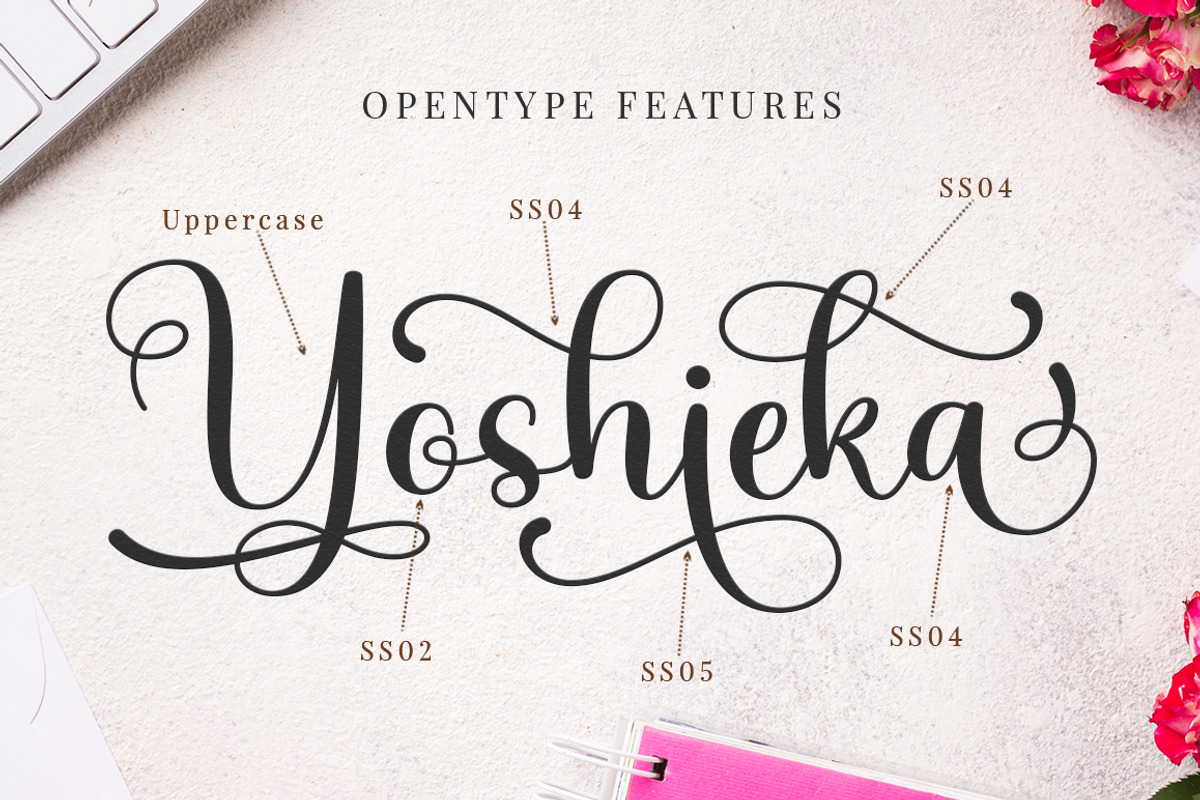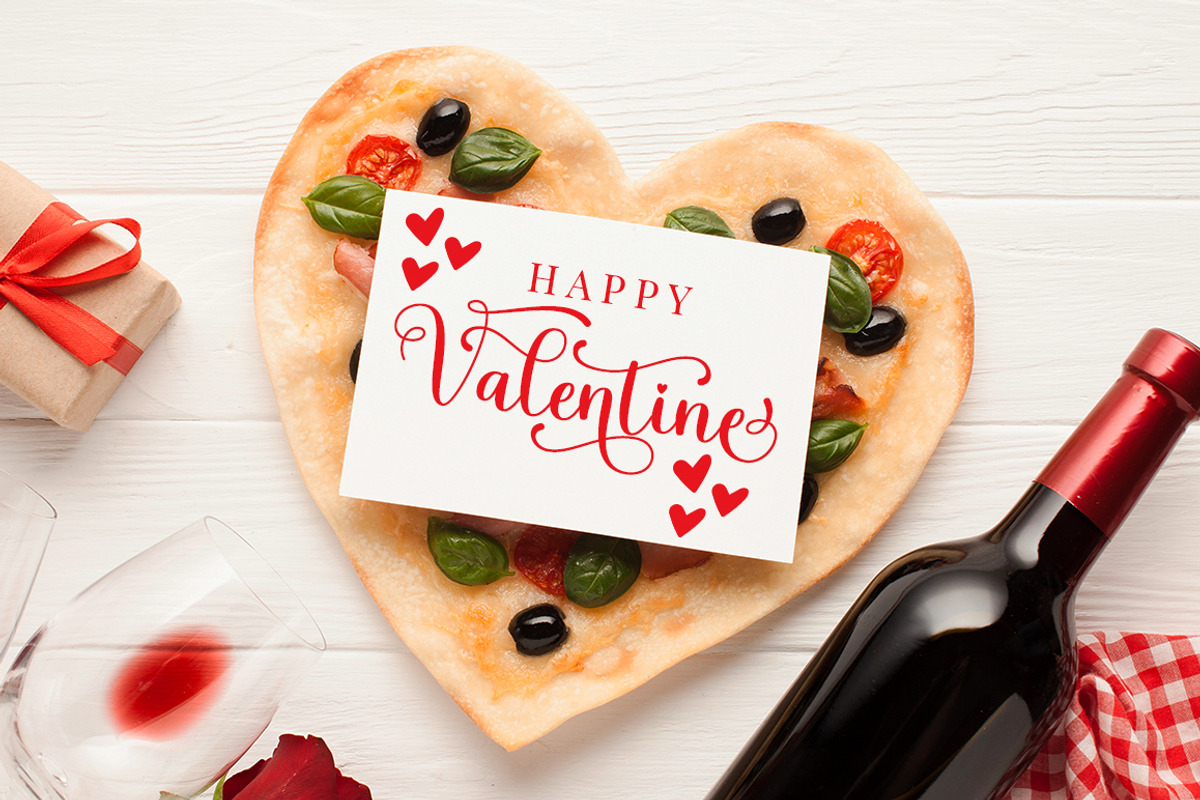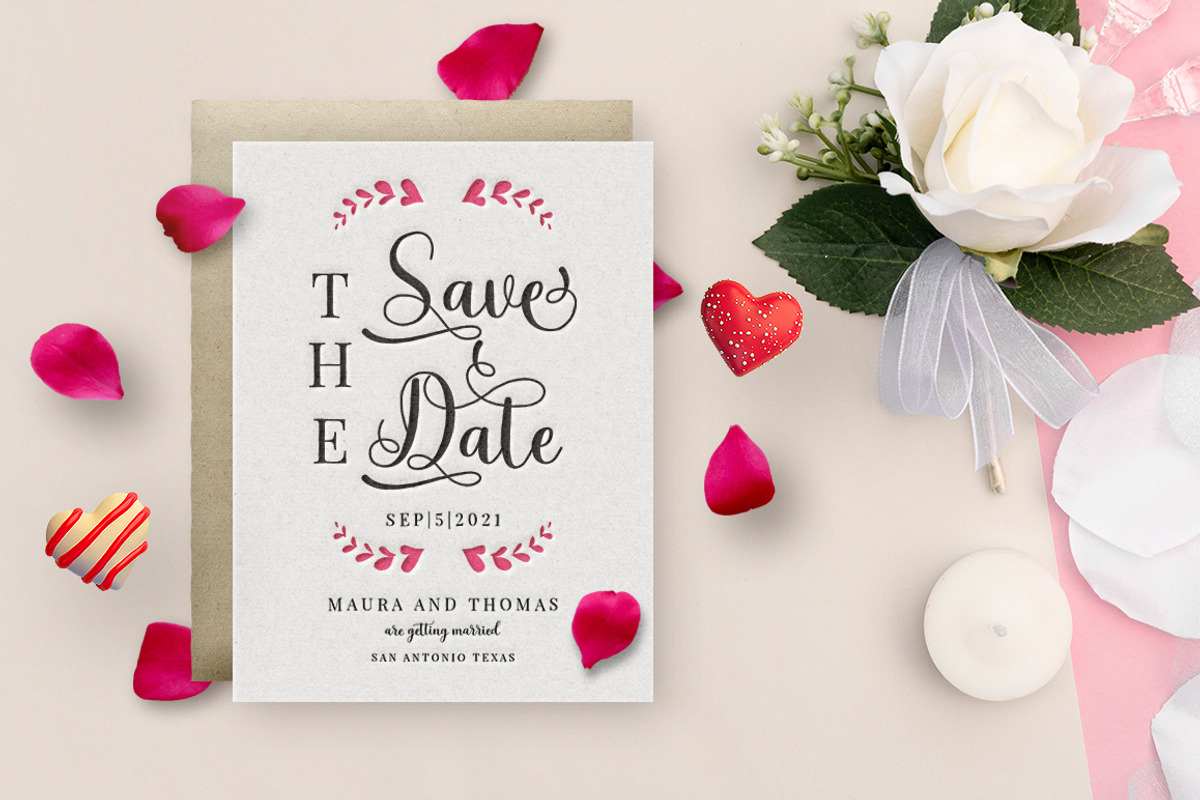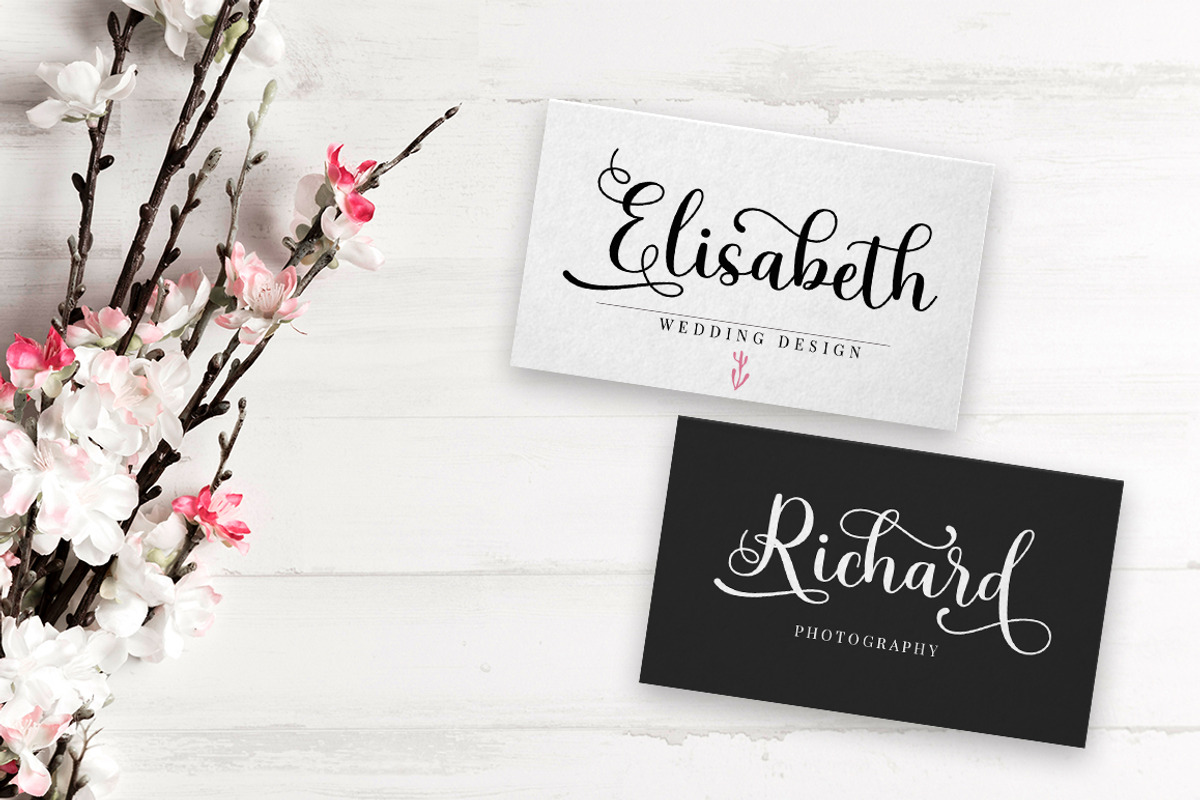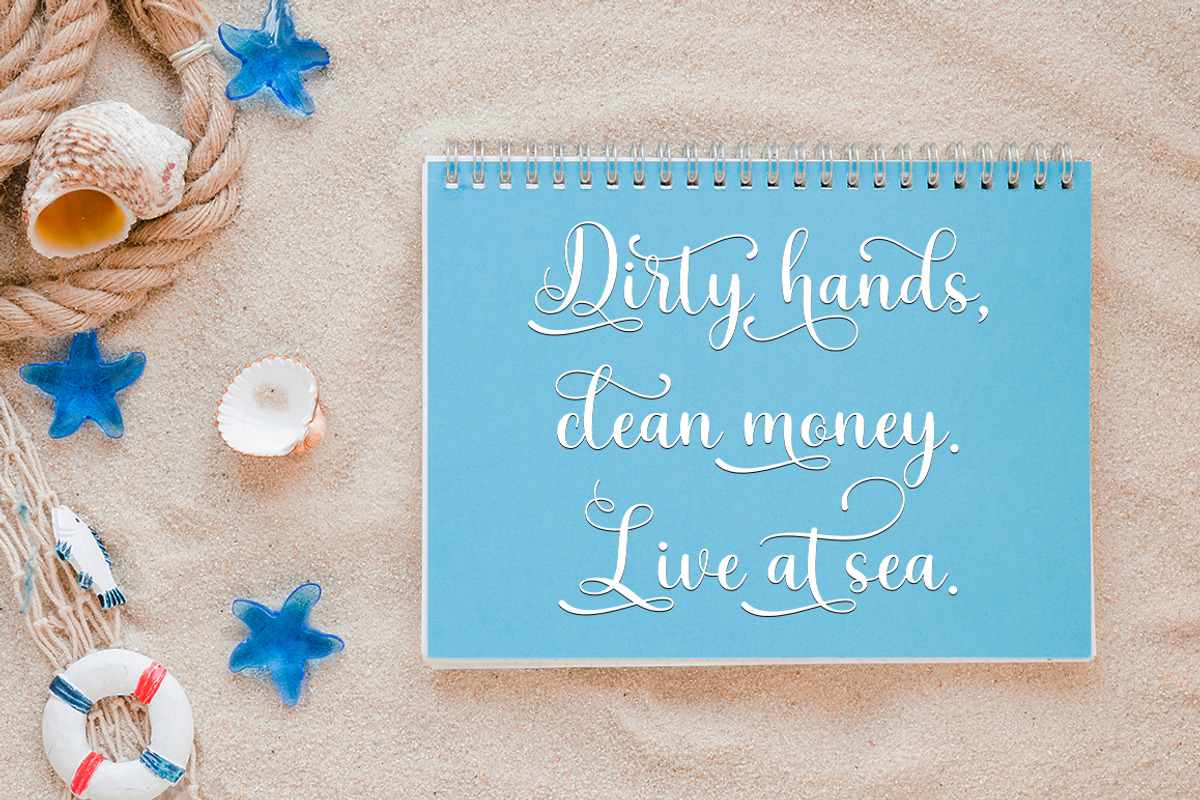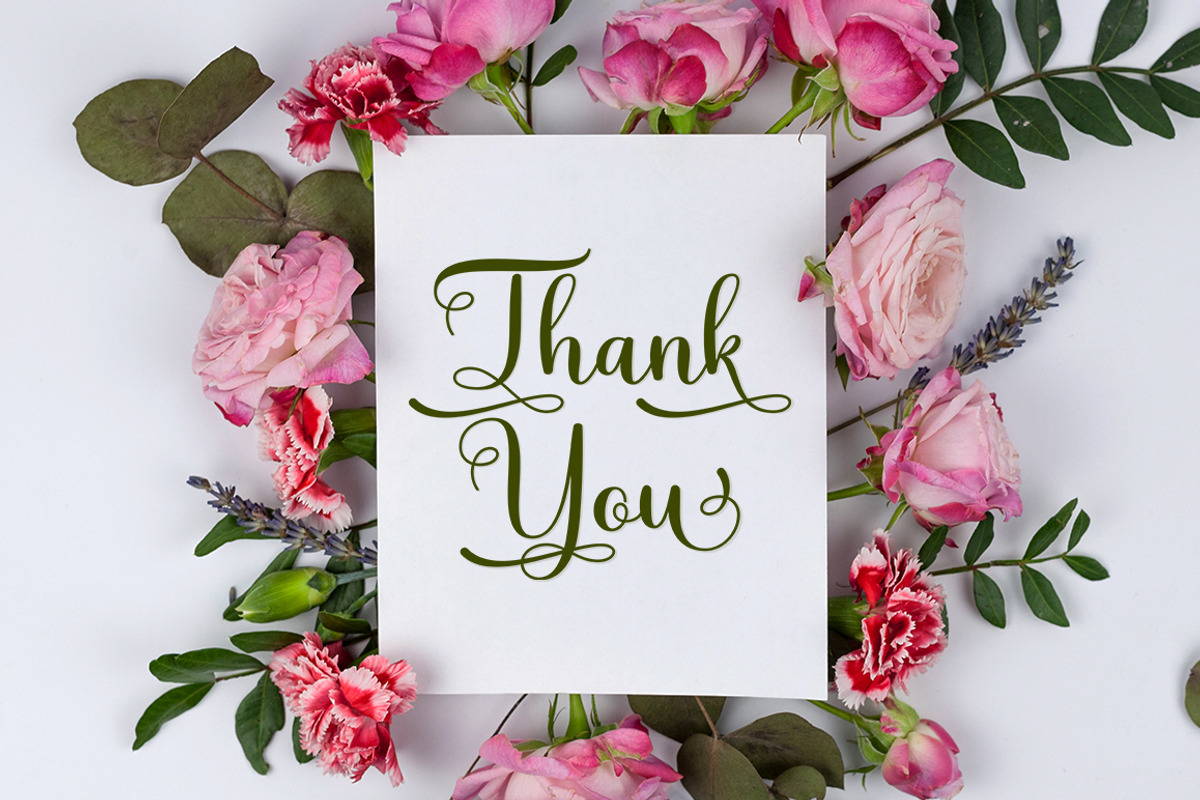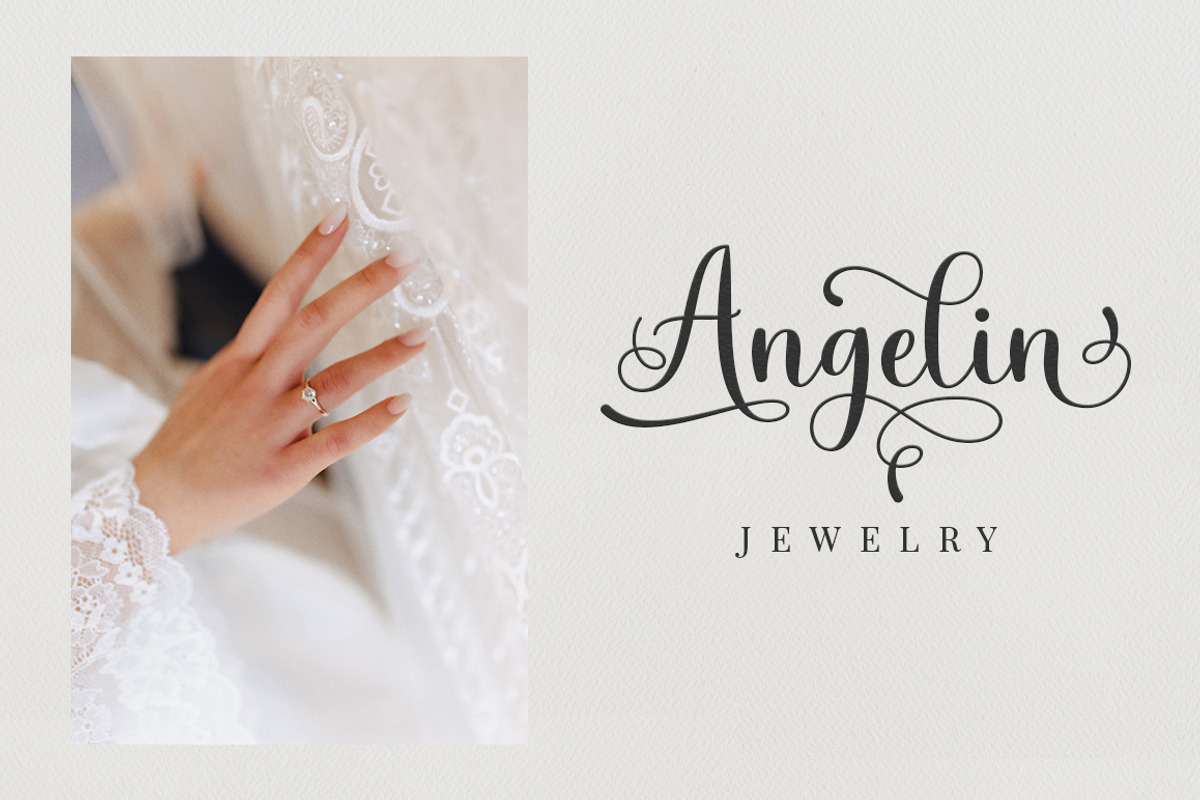
Yoshieka | Modern Calligraphy Font
Yoshieka Script is a modern calligraphy font. Here you will get a beautiful script font. This font is available some modern swirl that can make your work look elegant, sweet and perfect. Can be used for various purposes.such as headings, signature, logos, wedding invitation, t-shirt, letterhead, signage, lable, news, posters, badges etc.
- Yoshieka Script features OpenType stylistic alternates, ligatures and International support for most Western Languages is included.